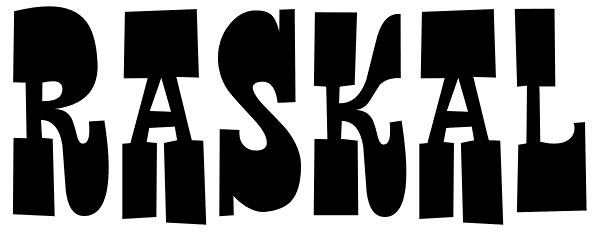
Raskal
Yiehar! Woohee! This is a funky and chunky wild west PizzaDude font! Buy all three versions at once and save a fistful of dollars!
Raskal Sheriff
Raskal Deputy
Raskal